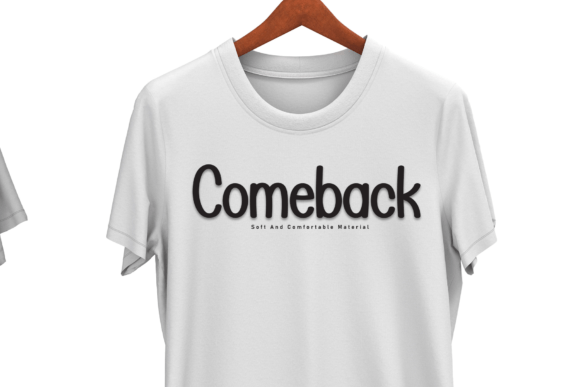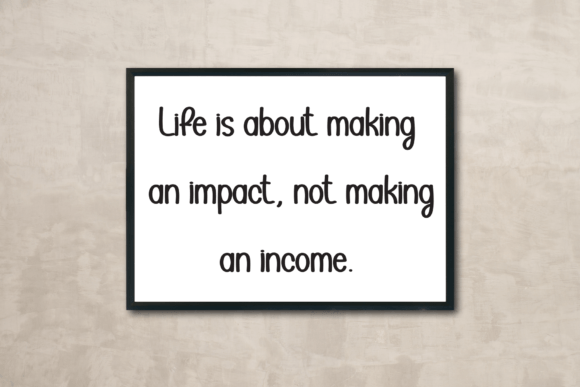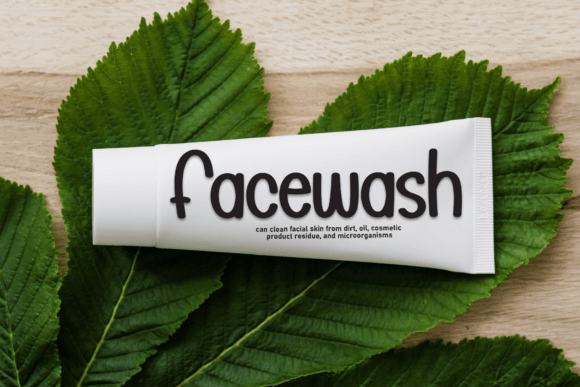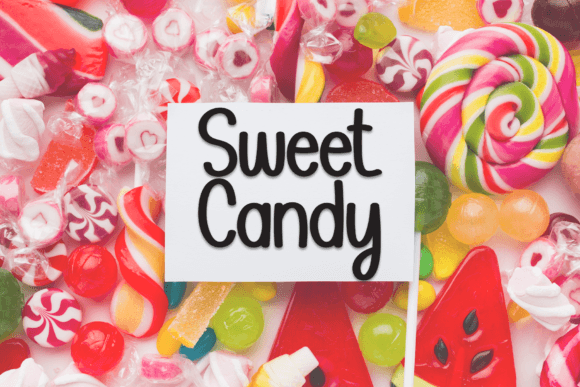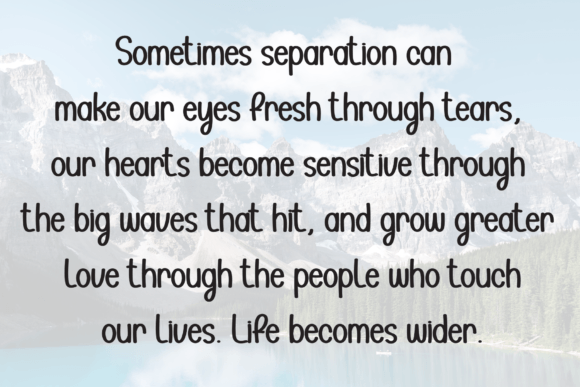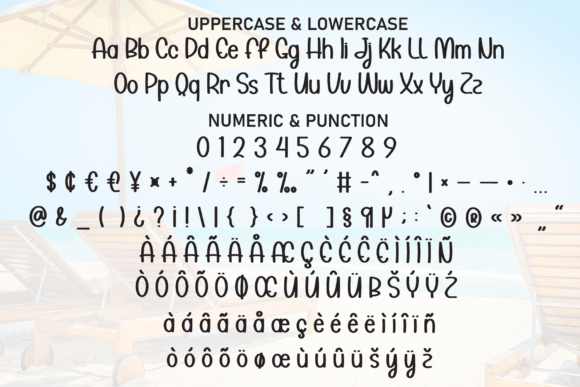
A Refreshing Touch for Your Designs
Who hasn’t spent hours scrolling through social media, dreaming of sun-kissed beaches and carefree summer days? The moment you see that perfect beach vacation ad, you can’t help but feel a pang of wanderlust. It’s moments like these that designers like us crave – a chance to bring a little bit of that beachy vibe into our work.
That’s where the Beach Holiday Font comes in – a charming, casual handwritten font that captures the essence of a relaxed summer day. Perfect for personal projects, social media graphics, and invitations, this font adds a warm, effortless touch to any design. With its natural, flowing strokes, it’s no wonder the Beach Holiday Font has become a go-to choice for designers looking to add some authenticity to their work.
Key Features of Beach Holiday Font
- Font Family: Beach Holiday Font is a unique, handwritten font designed to evoke the feeling of a beach holiday. It’s perfect for creating a relaxed, casual atmosphere in your designs.
- Unique Characteristics: Beach Holiday Font features a mix of cursive and script elements, with a playful, handwritten feel that’s perfect for adding a touch of whimsy to your designs.
Designer Review: Beach Holiday Font
Overall, I think the Beach Holiday Font has some great qualities that make it perfect for a specific niche. Here are some things that work well:
- ✨ Playful and Carefree Feel: The font’s unique, hand-drawn style gives it a carefree and playful vibe, which is perfect for beach-themed projects or summer promotions.
- ✨ Versatility: Despite its whimsical nature, the font is surprisingly versatile and can be used for a wide range of applications, from signage to digital graphics.
- ✨ Beautiful Letterforms: Each letter is carefully crafted to have a unique, hand-painted look, which adds to the font’s charm and visual appeal.
- ⚠️ Limited Legibility: Due to its unique style, the font can be difficult to read at small sizes or in low-resolution applications. This may limit its use in certain situations.
- ⚠️ Limited Character Set: The font’s character set is relatively small, which may make it less suitable for projects that require a wide range of characters, such as books or articles.
Overall, I think the Beach Holiday Font is a great choice for projects that require a playful and carefree feel. However, its limitations should be carefully considered before using it for more complex or formal projects.
The Beach Holiday Font is ideal for creating beach-themed designs, such as:
- Posters and flyers for beach events.
- Beach-themed social media graphics.
- Invitations and tickets for beach parties.
Remember to pair the font with other beach-inspired elements, such as palm trees and seashells, to create a cohesive design.